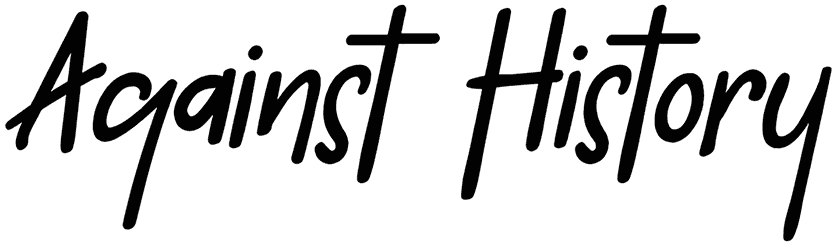
Against History Font
Welcome to the script font, Against History, which carries a sense of personalization, drama, dynamism, and softness. This thank you font is really awesome for any kind of graphic content, such as logos, business cards, posters, flyers, and movie banners that require a personalized touch. If you are in need of fantastic fonts such as this one, don’t hesitate to visit our rich archive.
This font retains a classy calligraphic influence while feeling contemporary and fresh. This versatility will attract a wide range of creative ideas, from letterheads and titles to stationery.